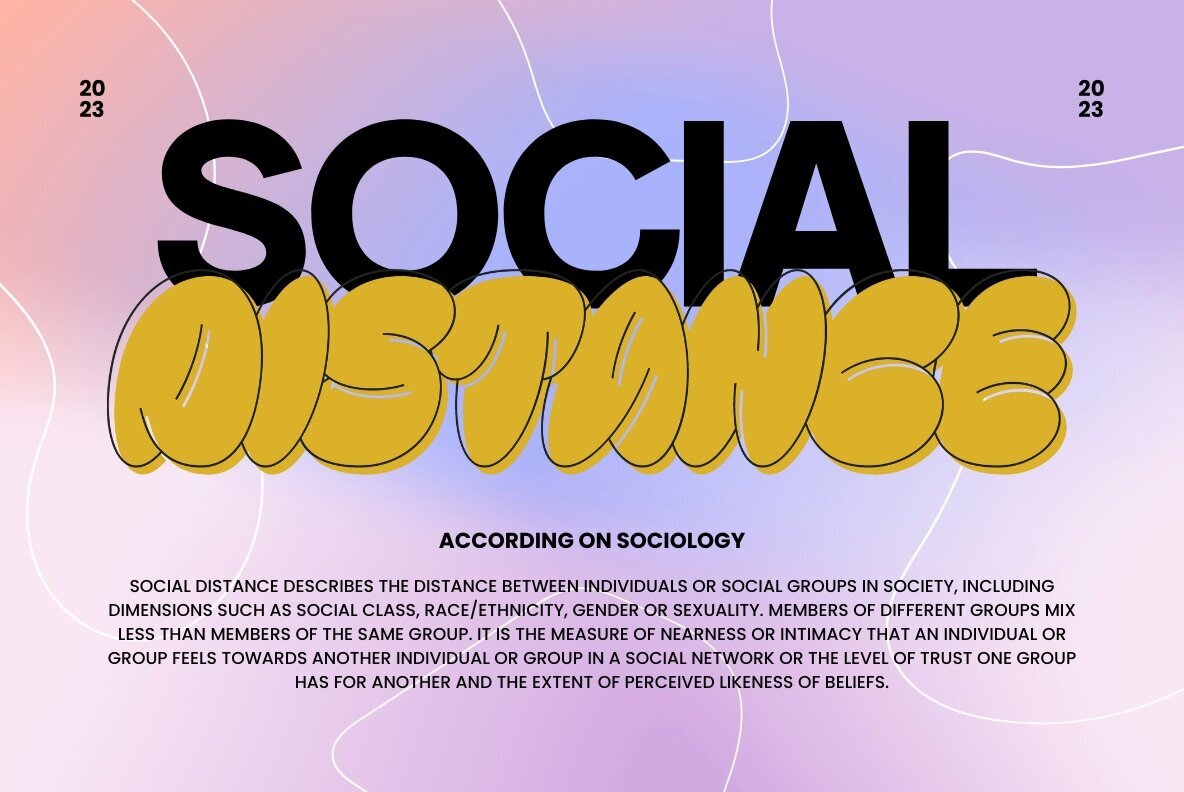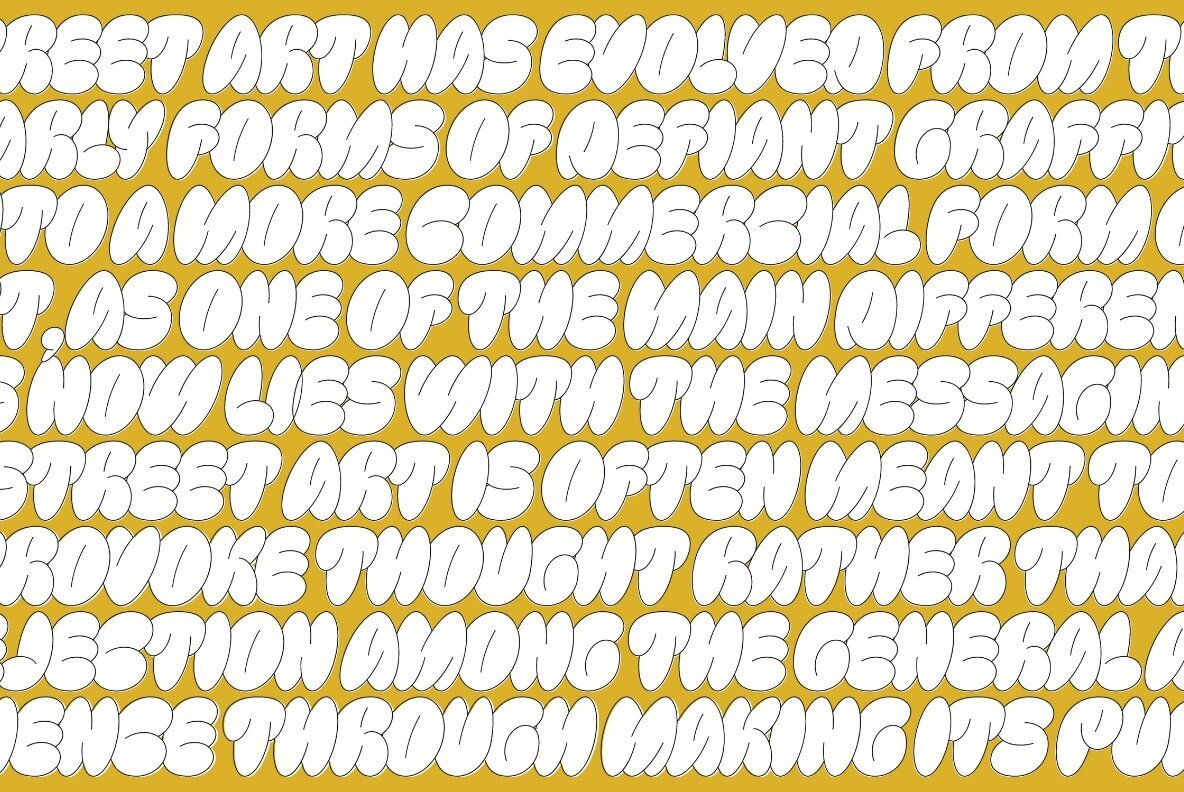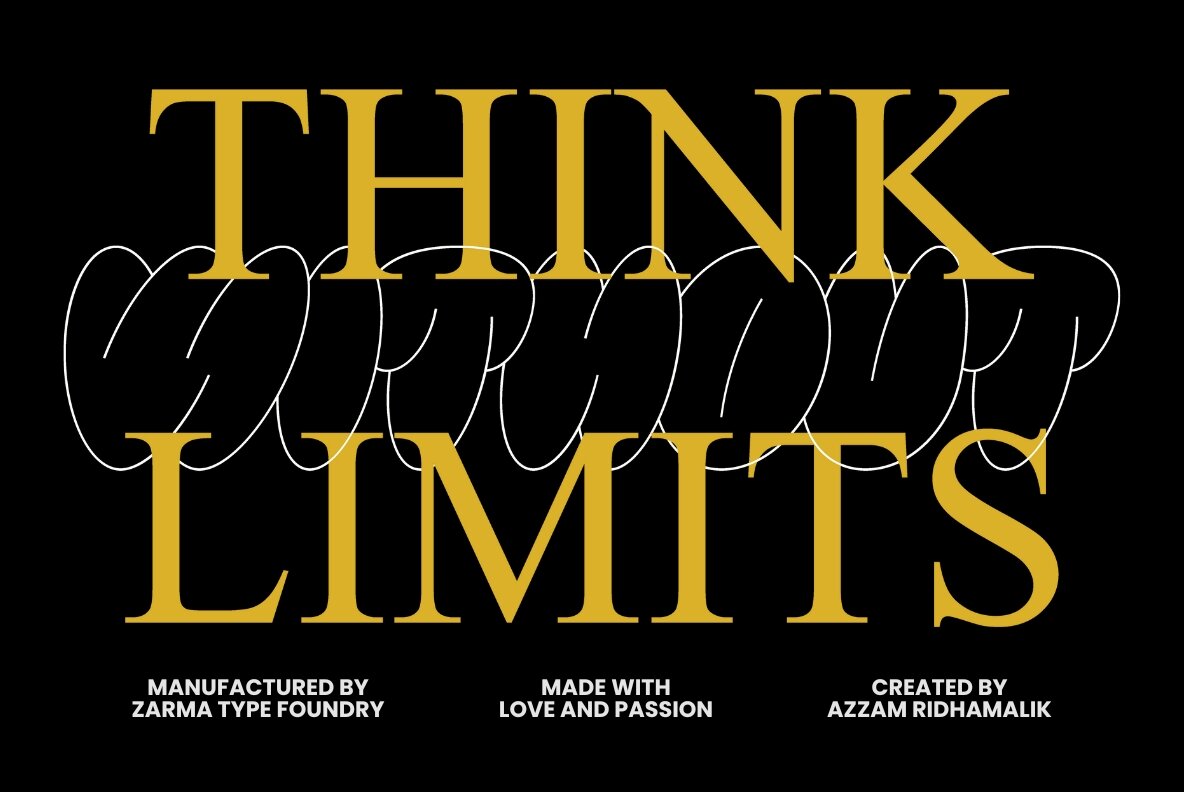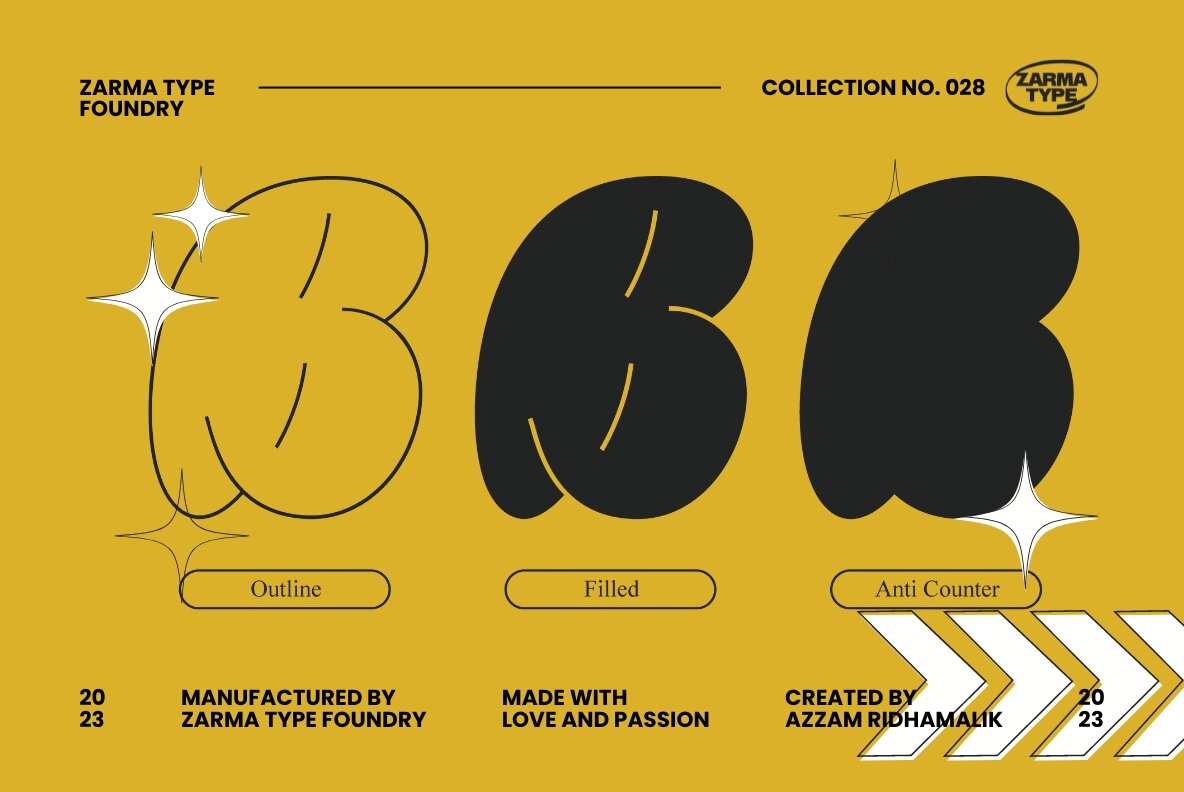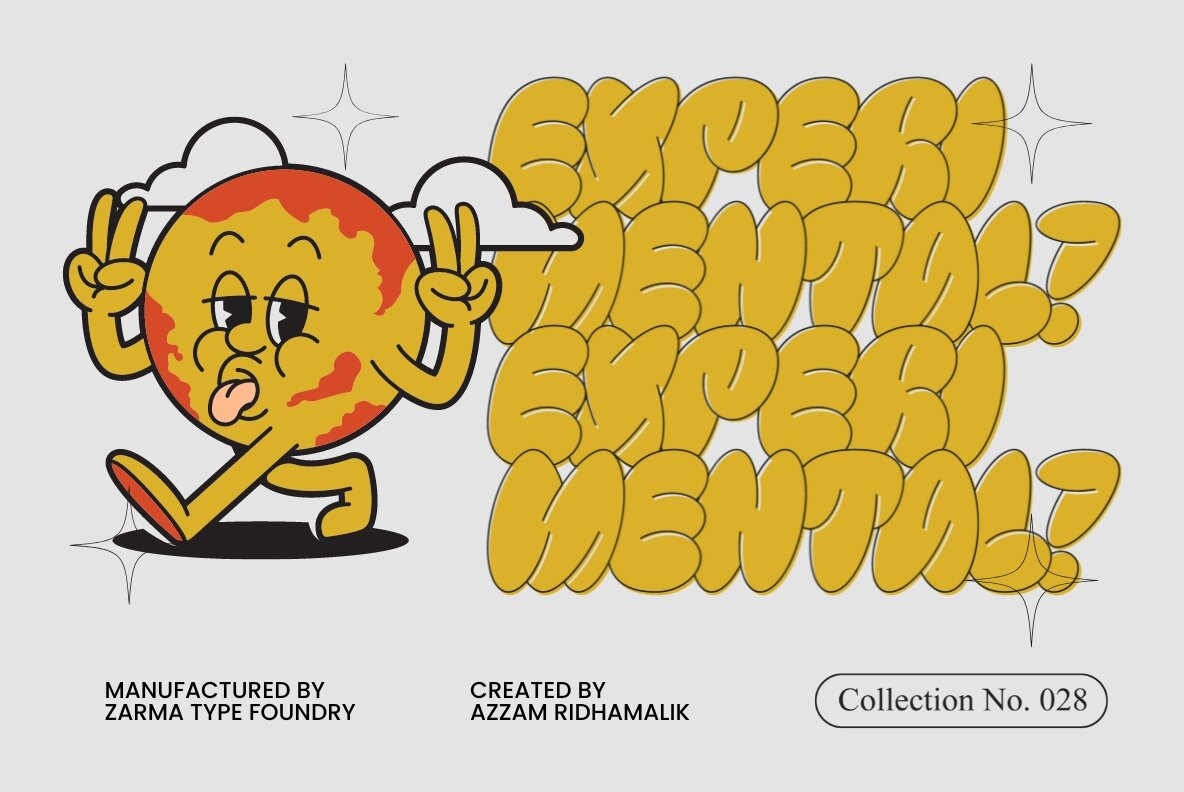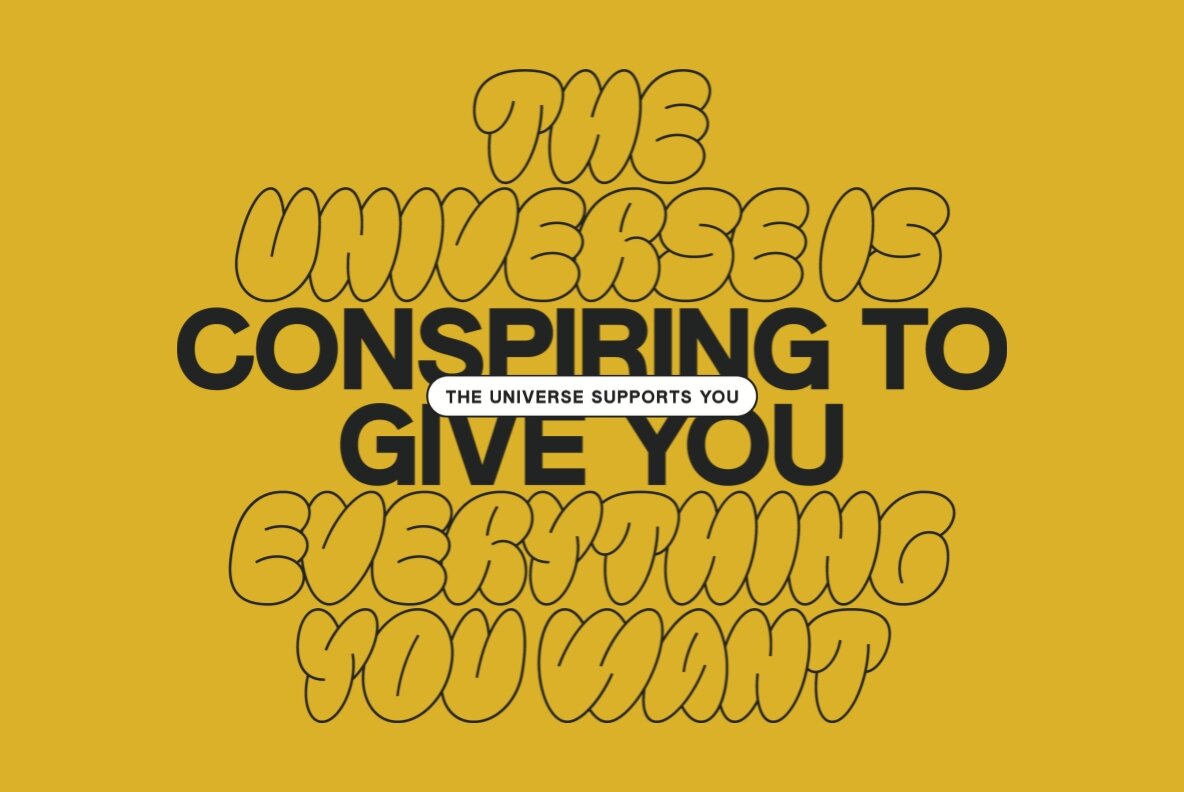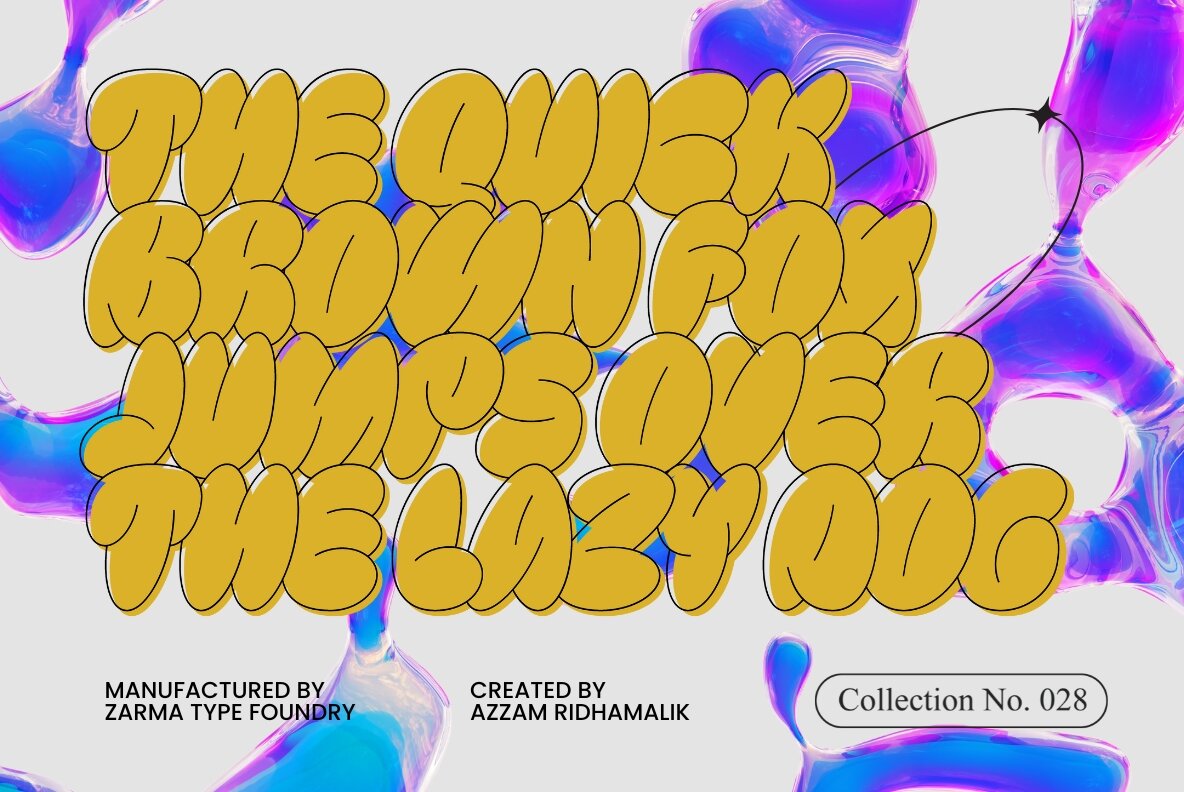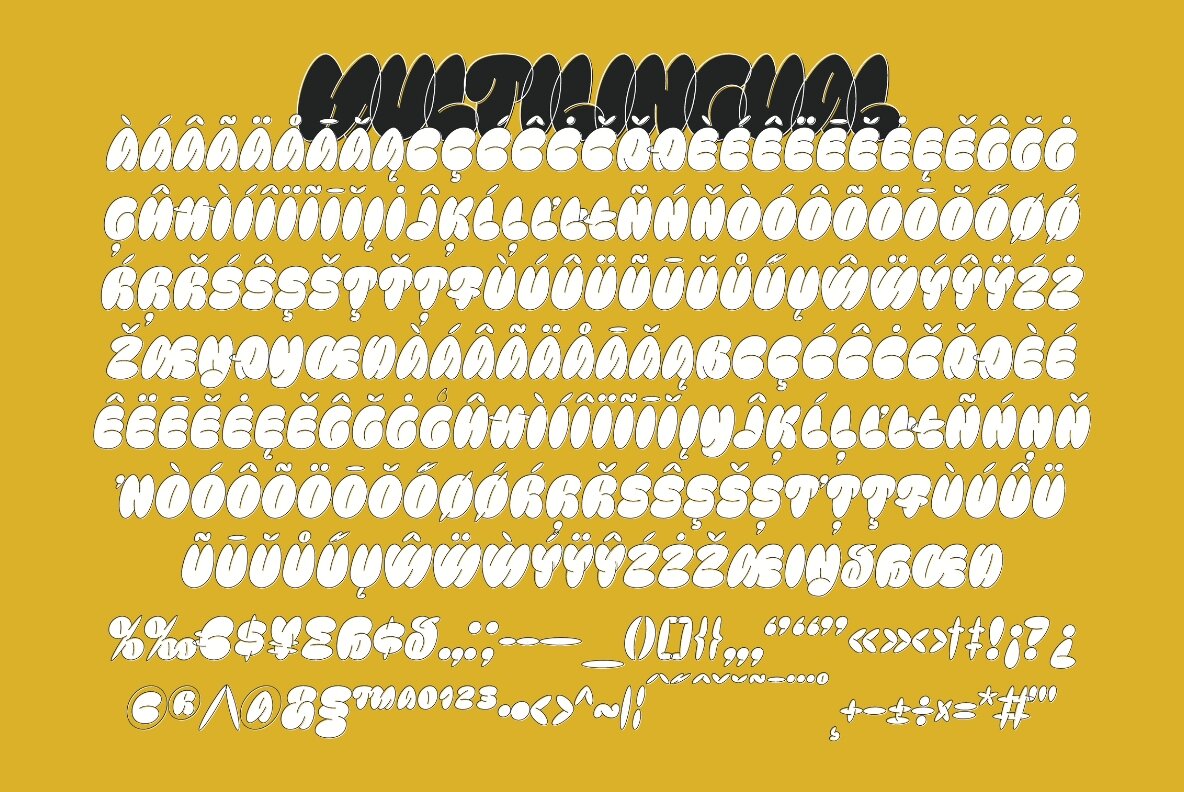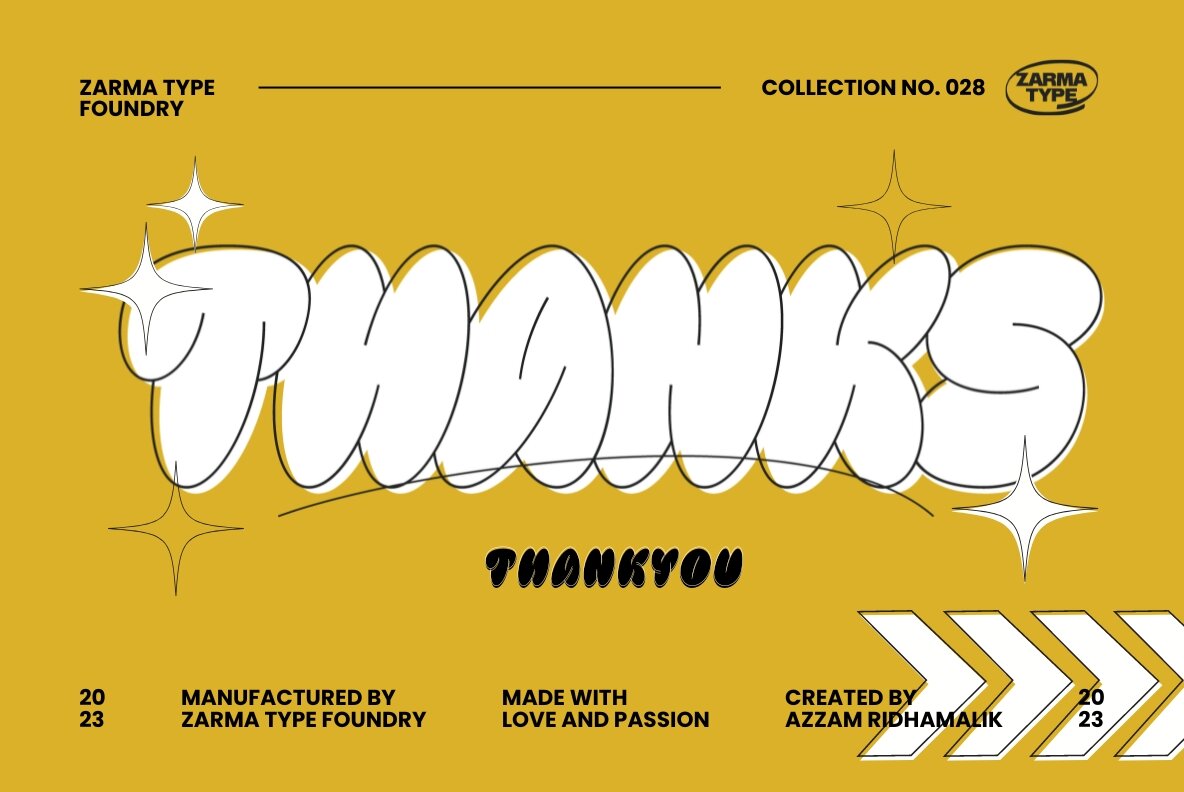
Bulbis 1
Introducing Bulbis, the latest addition to our font collection. This unique bubble font is inspired by graffiti and street art, infused with a modern layout that is sure to stand out. The font also incorporates a mix of y2k culture and streetwear visuals, which are currently trending in design identities. With its eye-catching appearance, Bulbis captures attention right from the start, drawing the viewer in to explore its fun and dynamic features. The font is versatile and can be used for a variety of design projects, from logos and branding to social media graphics and more. Give your designs a fresh and modern edge with Bulbis font today!